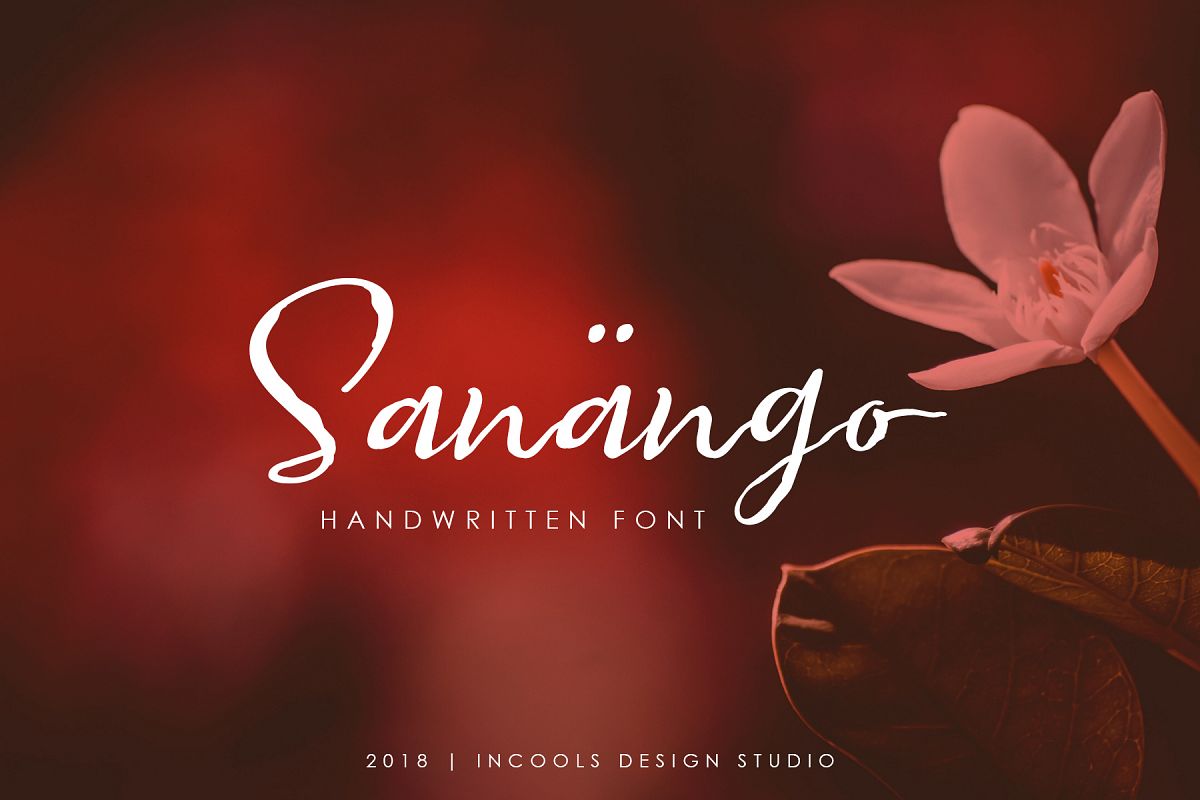
Sanango
Sanango is a font adopted by a plant in deep forest of Peru which used to Cure the addiction of Drug.
Sanago is well prepared to cure your thirsty about natural handwritten font, natural look, well curved.